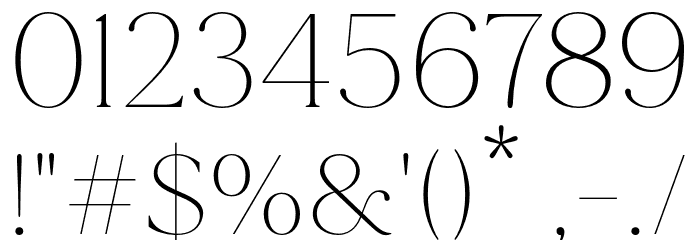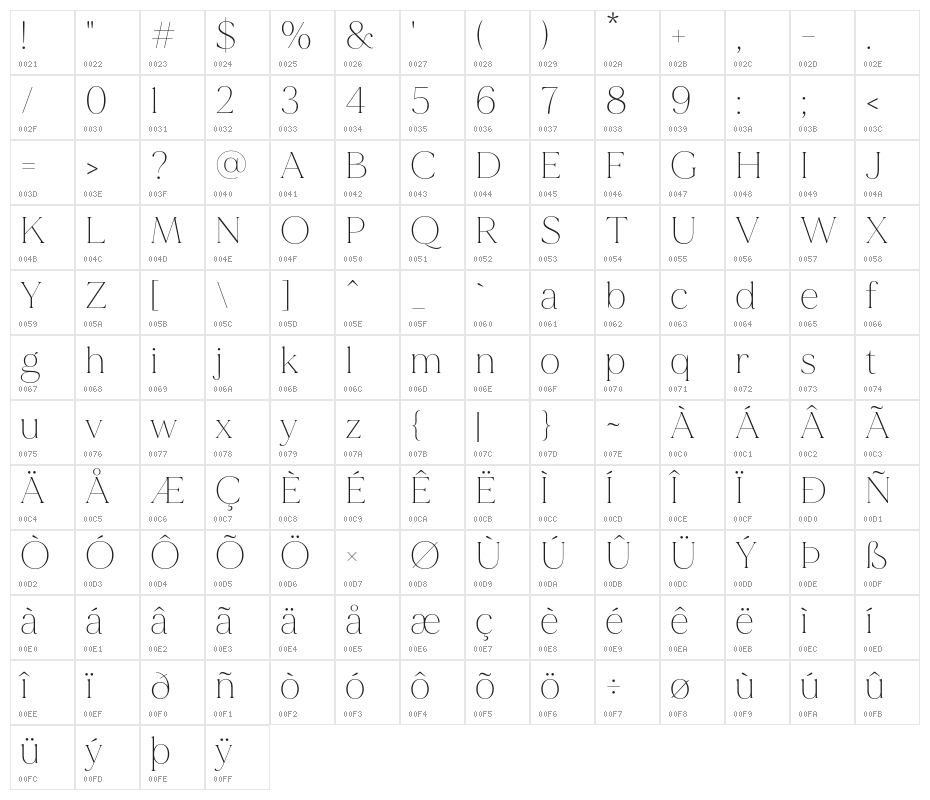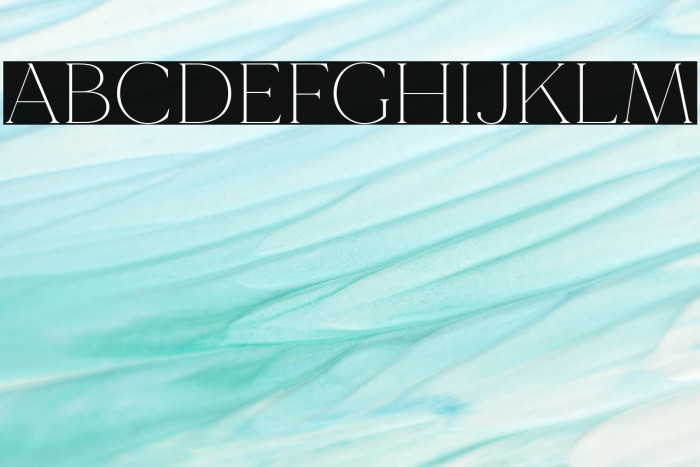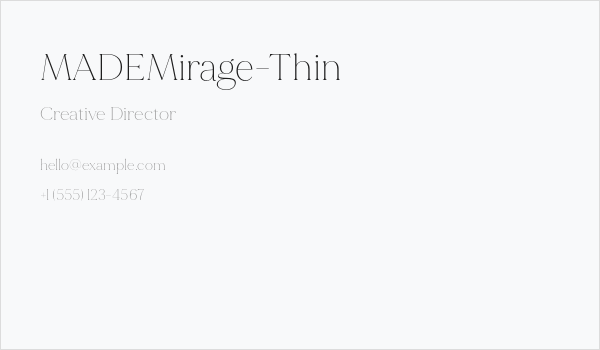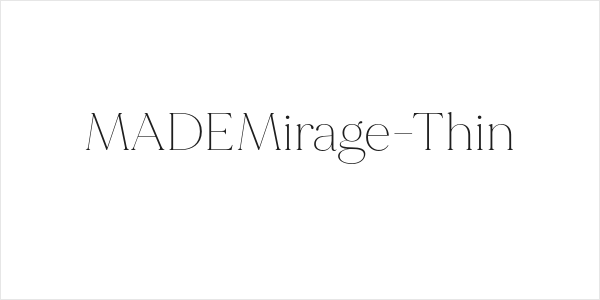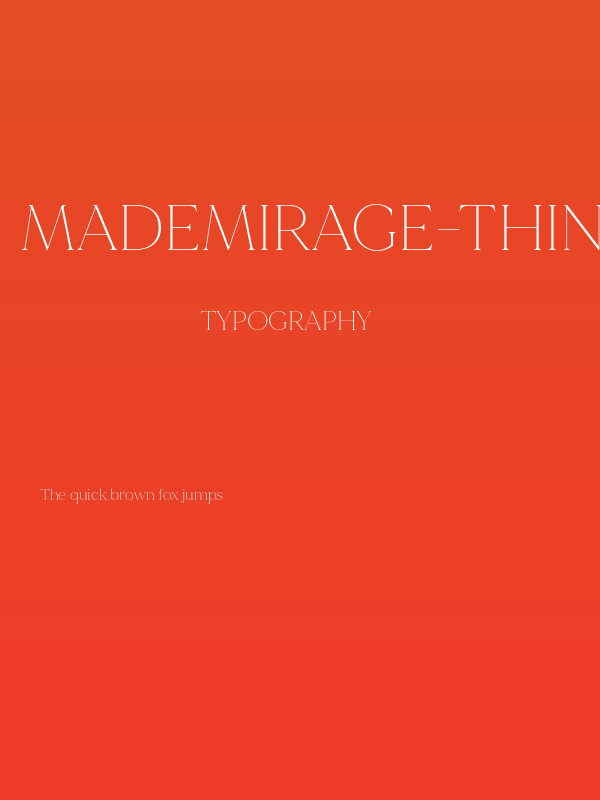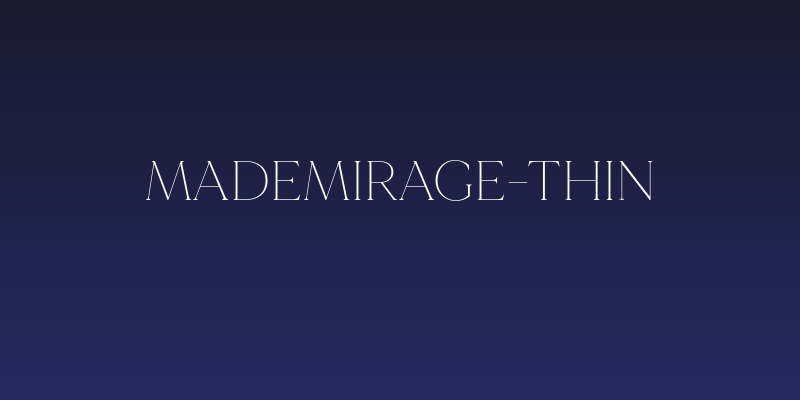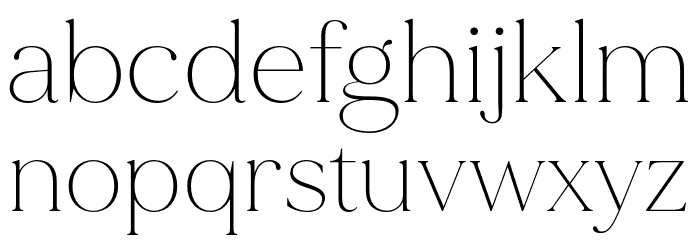
MADEMirage-Thin Font
MADEMirage-Thin Description
This font features a sleek and elegant design with thin, delicate strokes that convey a sense of sophistication and modernity. The characters are well-proportioned with a high level of clarity, making them suitable for both digital and print media. The uppercase letters are tall and graceful, while the lowercase letters maintain a consistent style that complements the overall aesthetic. The numerals are clear and easy to read, and the special characters are designed with the same attention to detail. This font's thin weight and refined lines make it ideal for projects that require a touch of elegance and class.
| Proposed Projects | Ideal for luxury branding, fashion magazines, wedding invitations, and high-end product packaging. |